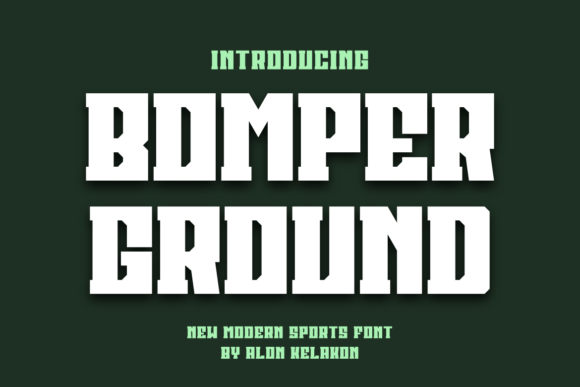
The Ultimate Guide to Bomper Ground Font: Unleash Your Creativity
An Honest Review of Bomper Ground Font
So, what makes Bomper Ground Font so great? Let’s take a closer look.
• ✨ **Bold and eye-catching**: Bomper Ground Font is perfect for making a statement. Its bold design ensures your text won’t go unnoticed.
• ✅ **Highly versatile**: This font can be used for a wide range of projects, from posters and flyers to social media graphics and more.
• 💥 **Unique personality**: Bomper Ground Font has a distinctive style that adds a touch of personality to any design.
While Bomper Ground Font is an amazing font, there are a few things to keep in mind:
• 🤔 **Limited legibility at small sizes**: Like many bold fonts, Bomper Ground can be difficult to read at very small sizes. It’s best used for headlines or titles.
• ⚠️ **Not suitable for body text**: Due to its bold nature, Bomper Ground Font isn’t ideal for long blocks of text. Stick to using it for headings and titles.
The Backstory of Bomper Ground Font
Bomper Ground Font was designed with one goal in mind: to create a bold, eye-catching font that would make a statement. Inspired by the world of graffiti and street art, this font is perfect for designers who want to add a touch of personality to their work.
Q: What is Bomper Ground Font best used for?
A: Bomper Ground Font is perfect for headlines, titles, and short blocks of text. It’s ideal for making a statement and adding personality to your designs.
Q: Is Bomper Ground Font available in different weights or styles?
A: Currently, Bomper Ground Font is available in a single weight. However, some font packages may include additional styles or weights.